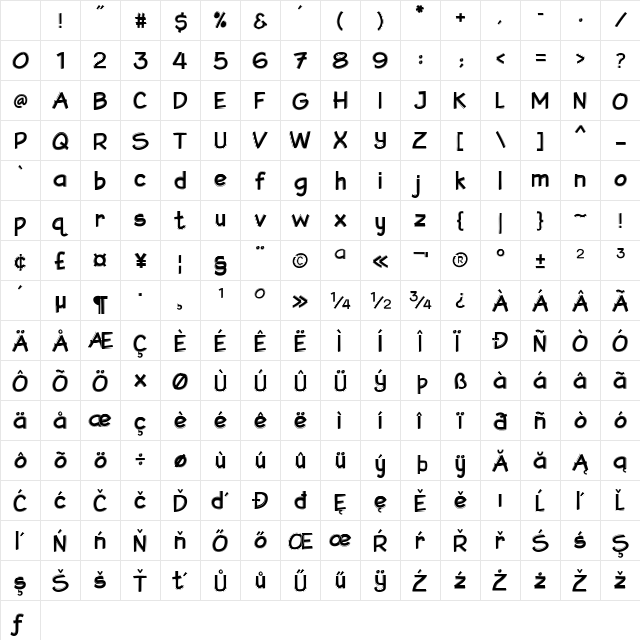
Artescratch is a composed and adaptable typeface that performs quietly and consistently across a wide range of design contexts.
Pro Tip: Use Artescratch in both headline and body roles to test its range before committing to a single application.